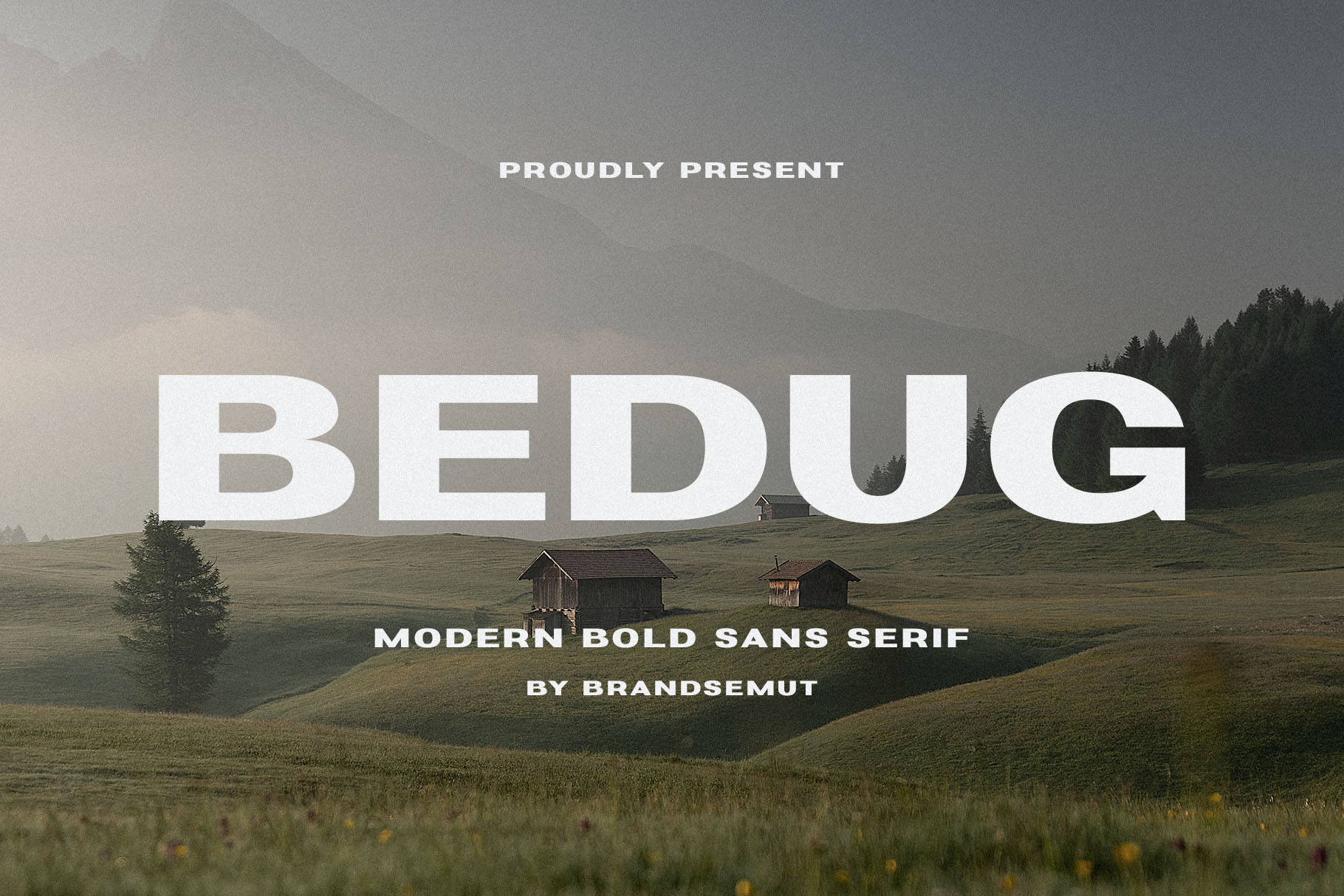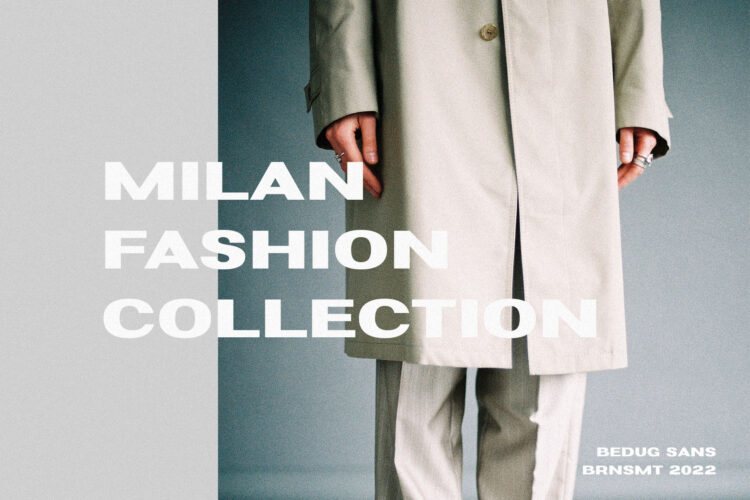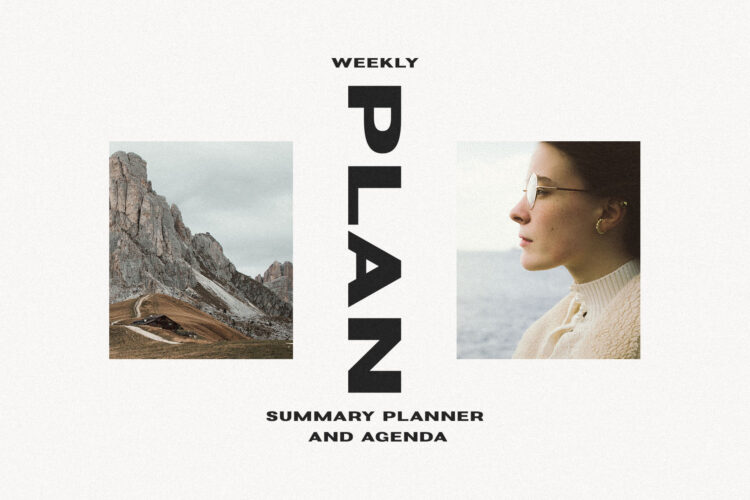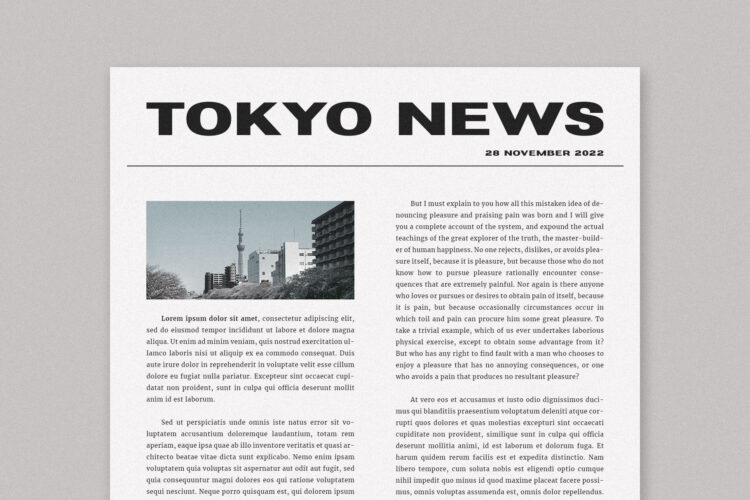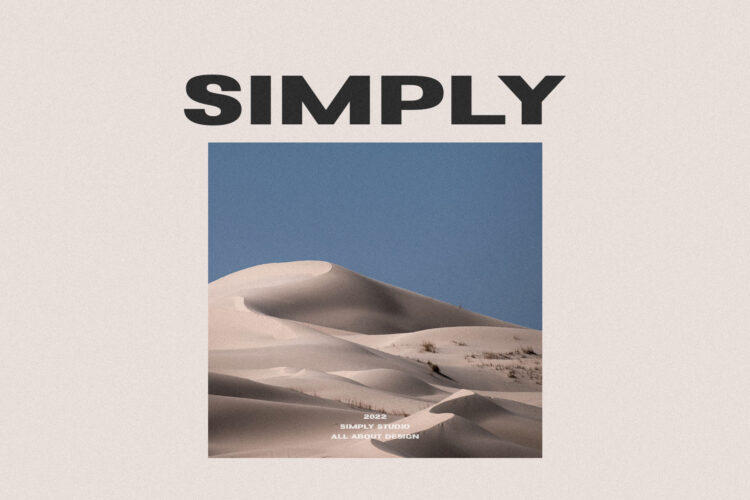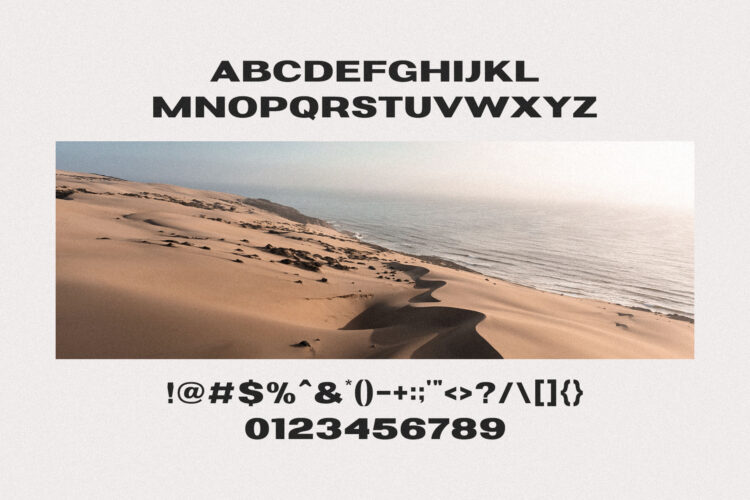
Introducing Bedug Modern Bold Sans Serif.
Bedug is a modern and classy typeface, best used as a display for headings, logos, branding, magazines, product packaging and invitations. Bedug come with clean lines and smooth curves give any project an extra touch of class.